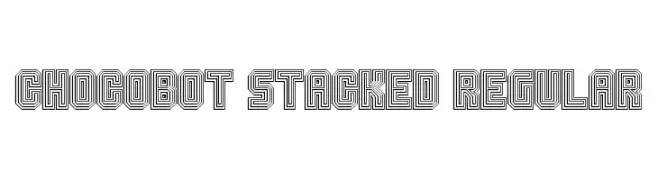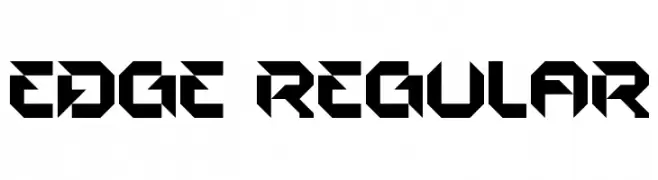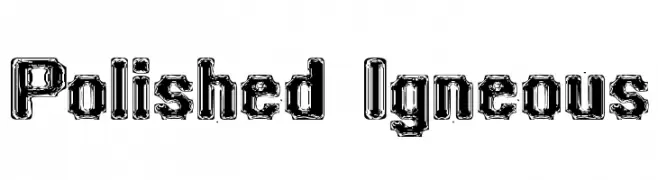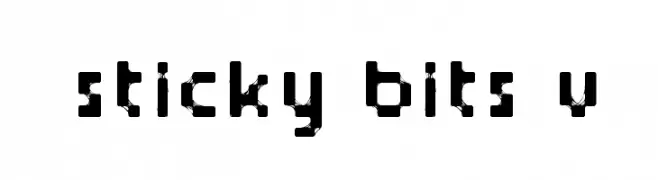
A bold, geometric font with sharp angles and a futuristic style.
A pixelated, geometric font with a bold, modern style.
A bold, geometric font with a stacked, three-dimensional appearance.
A jagged, fragmented font with sharp, angular strokes for a chaotic and dynamic look.
A bold, decorative font with a unique outline effect and textured borders.
A decorative font with a bold, outlined, three-dimensional appearance.
A bold, playful font with rounded, exaggerated curves and a whimsical style.
A bold, geometric font with angular shapes and intricate cut-out patterns.
A bold, pixelated font with a retro digital aesthetic.
A bold, textured font with a rugged, stone-like appearance.